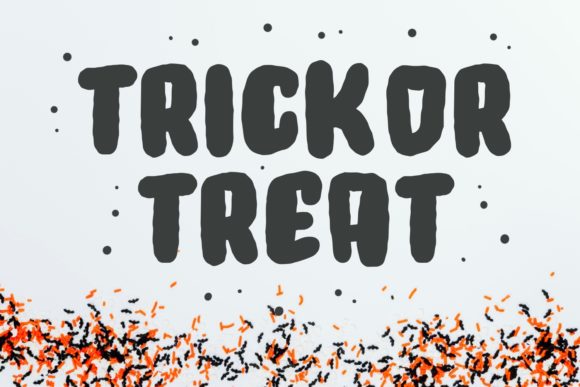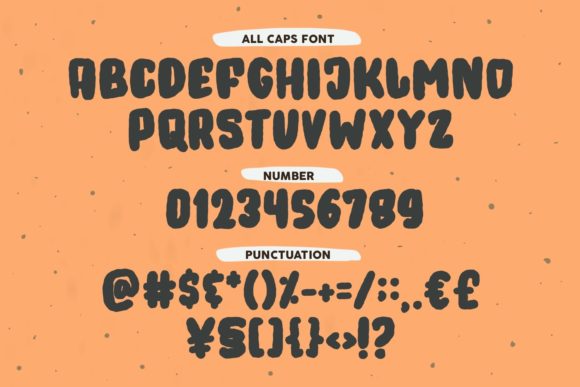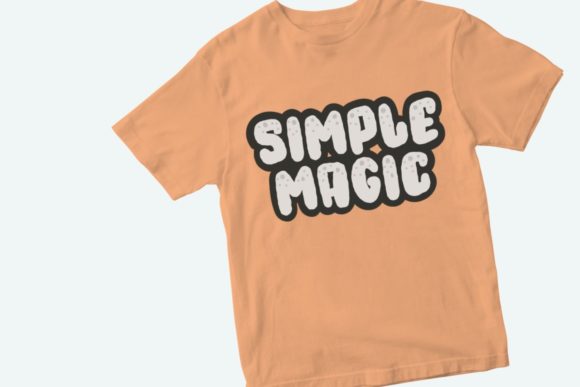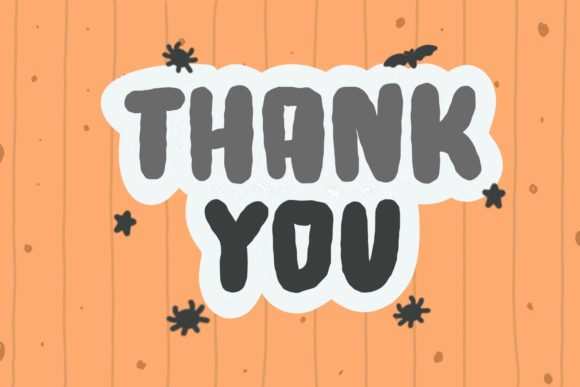
Spooky Vibes Meet Design Perfection
You know that moment when you’re brainstorming ideas for a design project and suddenly, the perfect font pops into your head? It’s like a spark of creativity that ignites the entire concept. For designers looking to add some spooky charm to their Halloween-themed projects, that spark might just come in the form of the Block Scarry Font.
This bold and quirky display font is designed to add a touch of whimsy to any design. With its unique character, Block Scarry Font is perfect for designers looking to create eye-catching graphics, posters, or even social media graphics that scream ‘Halloween spirit.’ Whether you’re a seasoned designer or a beginner, this font is sure to bring your designs to life in a way that’s both memorable and engaging.
Key Features of Block Scarry Font
- Unique Characteristics: The Block Scarry Font features a distinctive, block-like letterform design with bold lines and geometric shapes, making it perfect for creating bold, eye-catching headlines and titles.
Block Scarry Font Review
I recently had the chance to work with the Block Scarry Font, and here’s my honest review.
- Unique design: The Block Scarry Font has a distinct, playful feel that sets it apart from more traditional fonts.
- Expressive characters: Each character in the font is carefully crafted to convey a sense of personality and emotion.
- High-quality rendering: The font renders well in various sizes and resolutions, making it suitable for a wide range of applications.
- Limited language support: The font may not support certain languages or character sets, which could be a limitation for global applications.
- Not suitable for small text: The font’s bold, blocky design may make it difficult to read in small sizes, such as in body text.
- May not be suitable for formal applications: The font’s playful design may not be suitable for formal or professional applications, such as business reports or academic papers.
Overall, I think the Block Scarry Font is a great choice for applications where a unique, expressive design is desired. However, it may not be the best choice for every project. With careful consideration of its limitations, I think this font has the potential to add a lot of character to a design.
Getting the Most Out of the Block Scarry Font
To get the most out of the Block Scarry Font, try the following tips:
- Use it for titles and headings to add a playful touch to your design.
- Pair it with other fonts to create a unique and eye-catching font combination.
- Experiment with different font sizes and colors to add emphasis and visual interest.
The Block Scarry Font is ideal for:
- Children’s book covers and illustrations.
- Party invitations and decorations.
- Playful logos and branding materials.
Alternatives to Block Scarry Font
Great Vibes Font is a beautiful, elegant script font that is perfect for creating a sense of luxury and sophistication. It is ideal for use in high-end branding, weddings, and other special events. Compared to Block Scarry Font, Great Vibes Font is more refined and less playful, making it suitable for more formal occasions.
Alex Brush Font is a handwritten script font that is highly customizable and versatile. It is perfect for use in creative projects, such as invitations, posters, and social media graphics. Compared to Block Scarry Font, Alex Brush Font is more fluid and expressive, making it ideal for projects that require a personal touch.